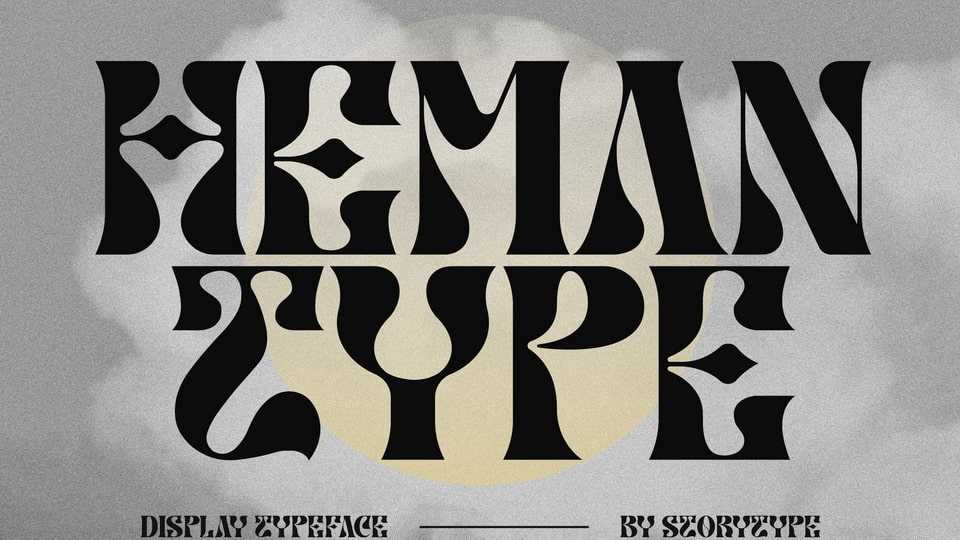
Download Heman Type font, a modern display typeface that has own unique style and classy look. Heman Type is perfect for an elegant and luxury logo, book or movie title design, fashion brand, magazine, clothes, lettering, quotes, and so much more.